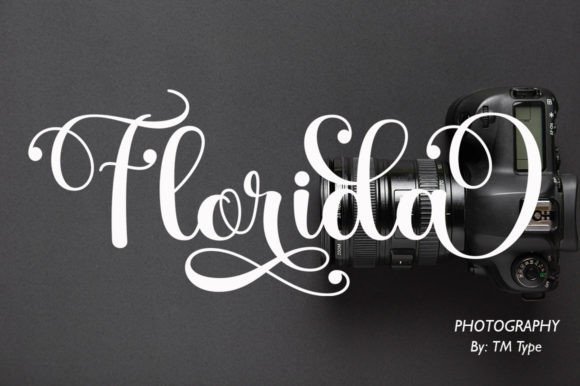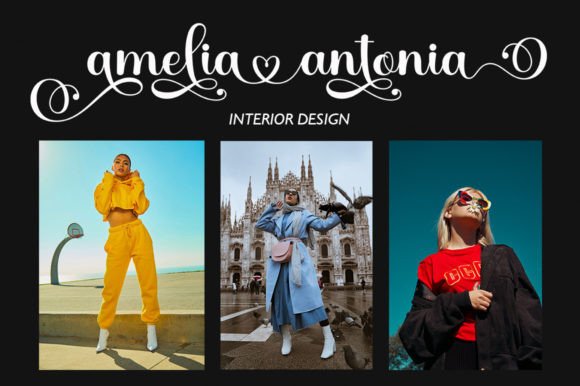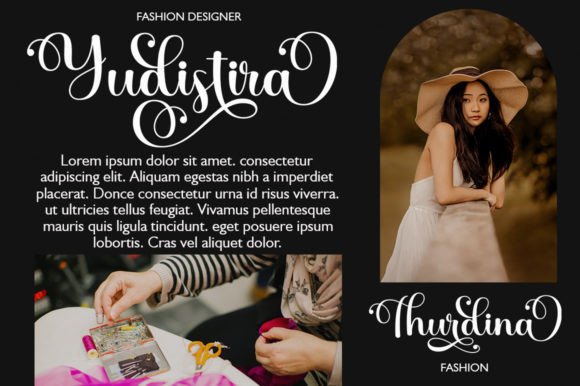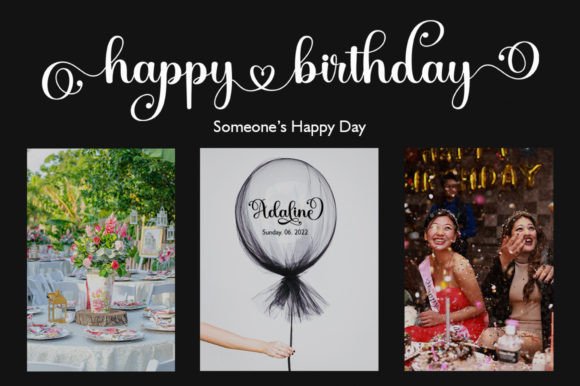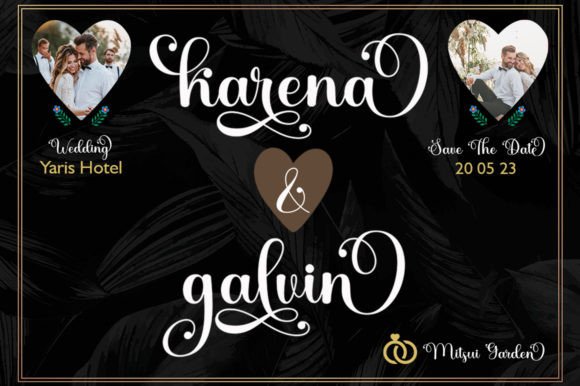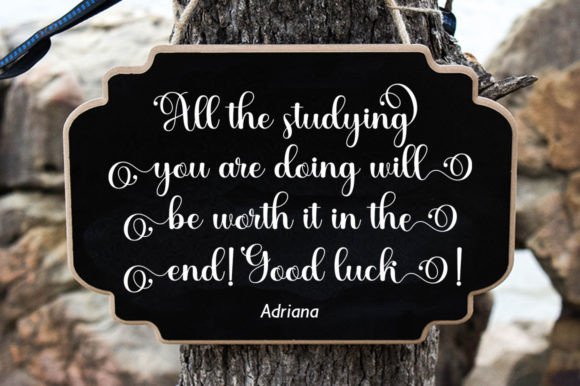
Introducing Balimtha Font: The Ultimate Romantic Calligraphy Typeface
Are you a designer or crafter looking for a font that can add a touch of luxury and romance to your design projects? Look no further than Balimtha Font! This beautiful calligraphy typeface is designed to make your designs stand out with its unique and elegant style. In this article, we’ll take a closer look at Balimtha Font, its features, and how it can elevate your design projects.
What is Balimtha Font?
Balimtha Font is a romantic and sweet calligraphy typeface that is perfect for designers and crafters who want to add a touch of elegance to their designs. The font features characters that dance along the baseline, creating a beautiful and flowing effect. This unique design makes Balimtha Font perfect for a variety of design projects, including wedding invitations, branding, packaging, and more.
Key Features of Balimtha Font
So, what makes Balimtha Font so special? Here are some of its key features:
- Romantic and Sweet Design: Balimtha Font has a romantic and sweet design that is perfect for designers and crafters who want to create elegant and sophisticated designs.
- Dancing Characters: The font features characters that dance along the baseline, creating a beautiful and flowing effect.
- Luxury Spark: Balimtha Font is designed to add a luxury spark to any design project, making it perfect for high-end branding and packaging designs.
Benefits of Using Balimtha Font
So, why should you use Balimtha Font for your design projects? Here are some of the benefits of using this beautiful font:
- Elegant and Sophisticated Designs: Balimtha Font is perfect for creating elegant and sophisticated designs that will make your clients stand out.
- Unique and Eye-Catching: The font’s unique design makes it perfect for creating eye-catching designs that will grab the attention of your audience.
- Versatile: Balimtha Font is versatile and can be used for a variety of design projects, including wedding invitations, branding, packaging, and more.
Who Can Use Balimtha Font?
Balimtha Font is perfect for a variety of designers and crafters, including:
- Graphic Designers: Graphic designers can use Balimtha Font to create elegant and sophisticated designs for their clients.
- Wedding Designers: Wedding designers can use the font to create beautiful wedding invitations, stationery, and more.
- Crafters: Crafters can use Balimtha Font to create beautiful and unique crafts, such as handmade cards and gift tags.
- Branding Experts: Branding experts can use the font to create high-end branding designs that will make their clients stand out.
In conclusion, Balimtha Font is a beautiful and elegant calligraphy typeface that is perfect for designers and crafters who want to add a touch of luxury and romance to their design projects. With its unique design, PUA encoding, and versatility, Balimtha Font is a must-have for any designer or crafter looking to create elegant and sophisticated designs. So why wait? Download Balimtha Font today and start creating stunning designs that will make your clients stand out!